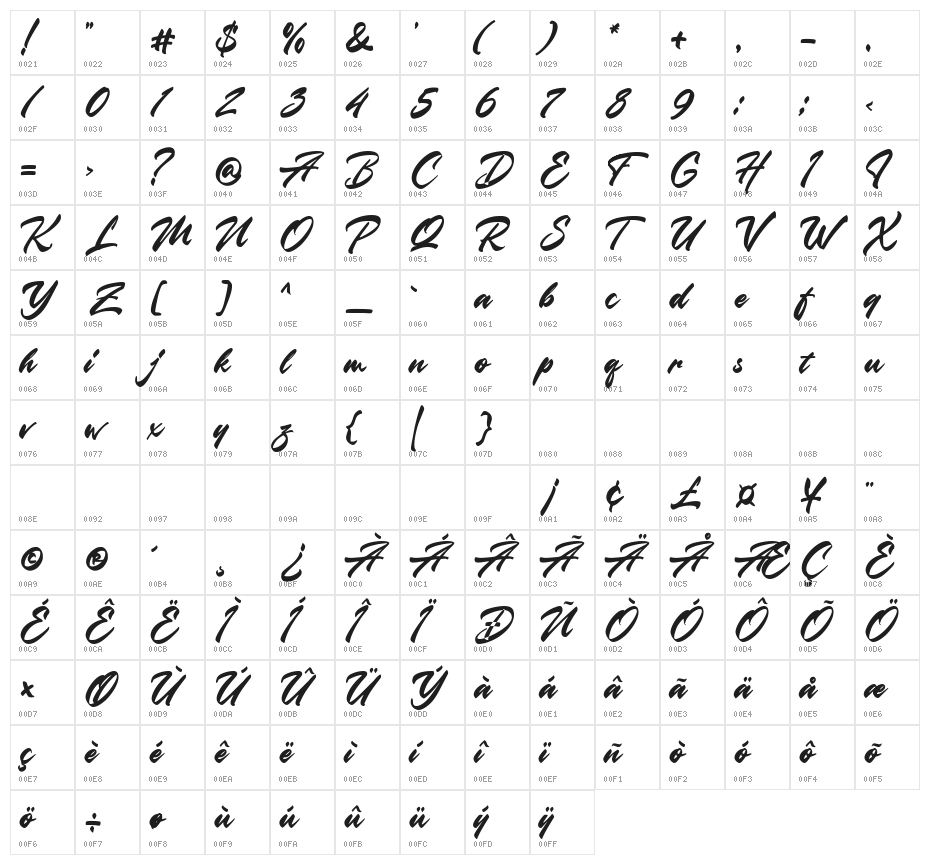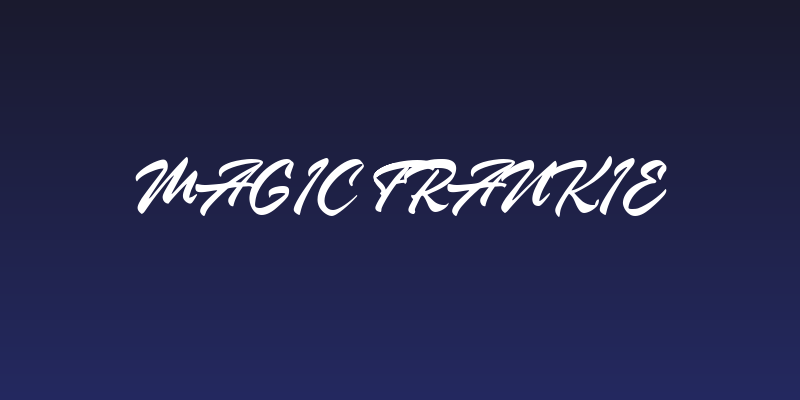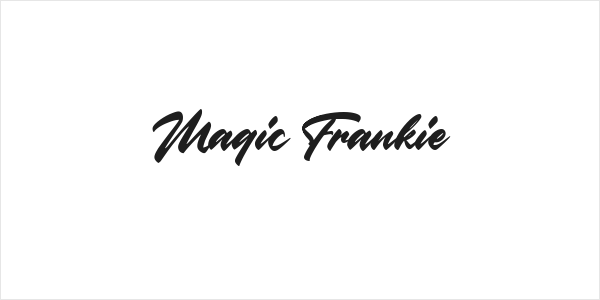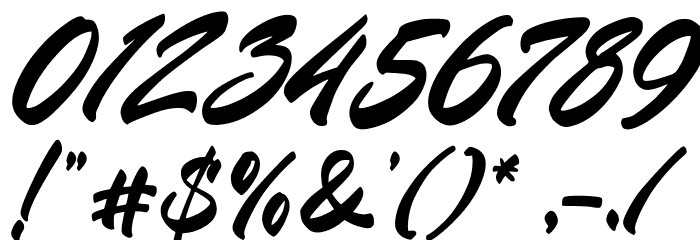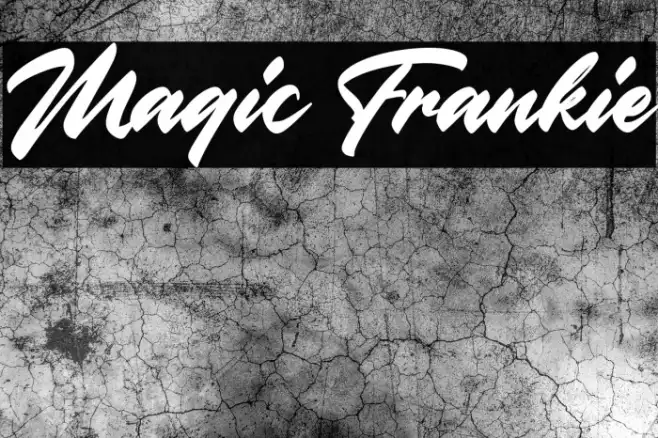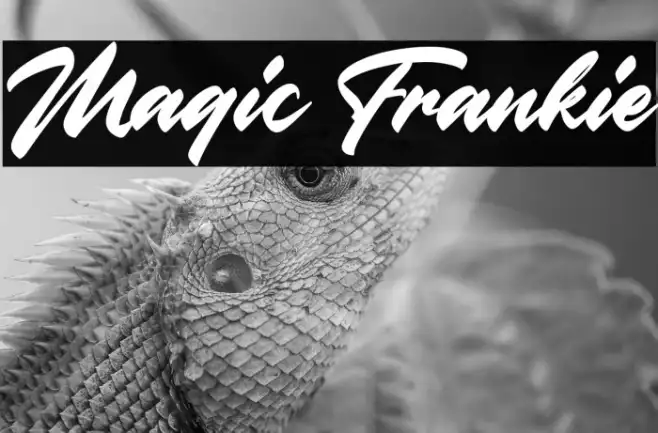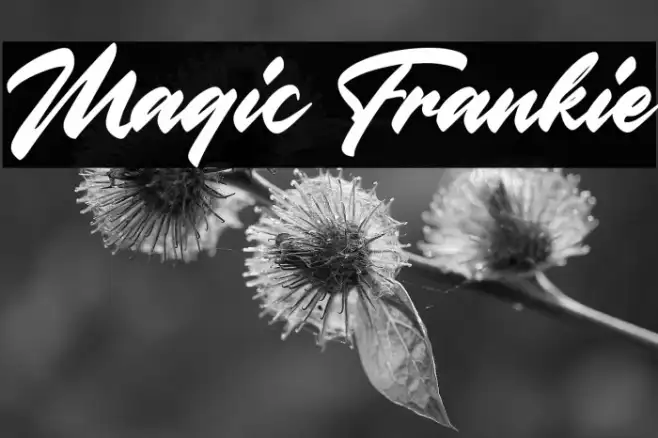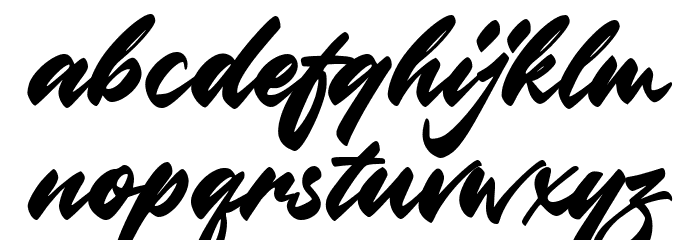
Magic Frankie Font
Magic Frankie Description
This font features a bold, cursive style with a dynamic and flowing appearance. The characters are interconnected, giving it a handwritten feel that is both elegant and expressive. The uppercase letters are slightly larger and more pronounced, while the lowercase letters maintain a consistent flow. The numbers and special characters are designed to match the overall aesthetic, with smooth curves and a sense of movement. The font's boldness makes it stand out, while the cursive style adds a touch of sophistication and creativity.